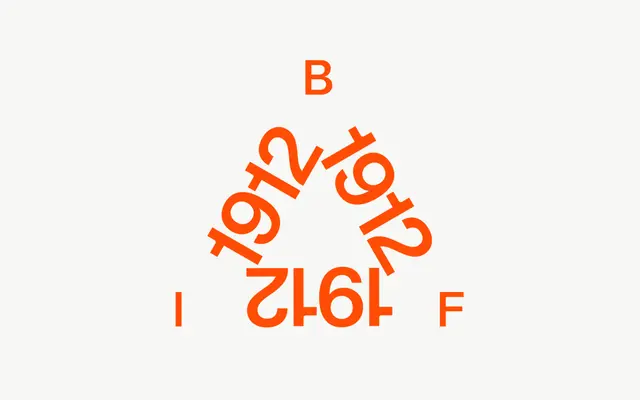
A mechanically rigorous modern grotesque from Kurppa Hosk Type, offered in five weights with matching italics and broad Latin character coverage.
Built on a rigid, mechanical approach to the grotesque tradition, it runs from Light to Black with italic companions at every weight. The character set is extensive, covering a wide range of extended Latin glyphs alongside OpenType features including oldstyle figures, tabular numbers, fractions and circled numerals. Suited to identity, editorial and UI work where a clean, structured grotesque is needed without humanist softness.
Described by the foundry as a modern grotesque with a rigid and mechanical approach, placing it firmly in the grotesque sans-serif tradition with an emphasis on geometric precision over humanist warmth.